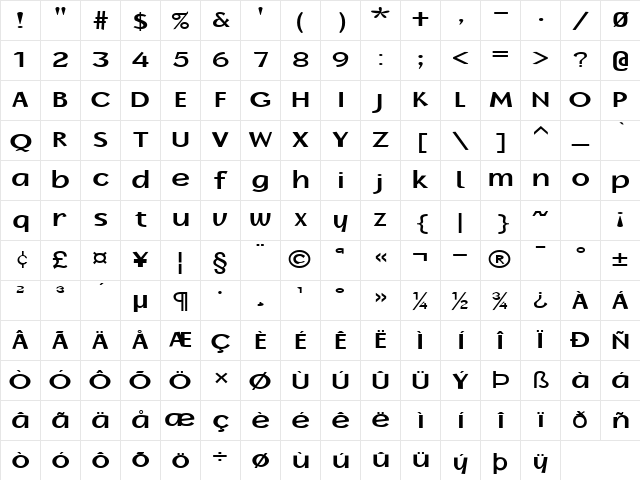
Oak-Ridge-Extended Bold
Oak-Ridge-Extended Family
Oak-Ridge-Extended Bold
Oak-Ridge-Extended Bold Font Preview
Oak-Ridge-Extended Bold Uppercase Preview
Oak-Ridge-Extended Bold Lowercase Preview
Oak-Ridge-Extended Bold Numeric Preview
Oak-Ridge-Extended Bold Character Map
Complete Oak-Ridge-Extended Bold glyph index. Displaying only characters natively supported by Oak-Ridge-Extended Bold font.
Oak-Ridge-Extended Bold Character Map
Design Context for Oak-Ridge-Extended
Oak-Ridge-Extended is a composed and adaptable typeface that performs quietly and consistently across a wide range of design contexts. Its bold stroke weight gives it real presence on the page.